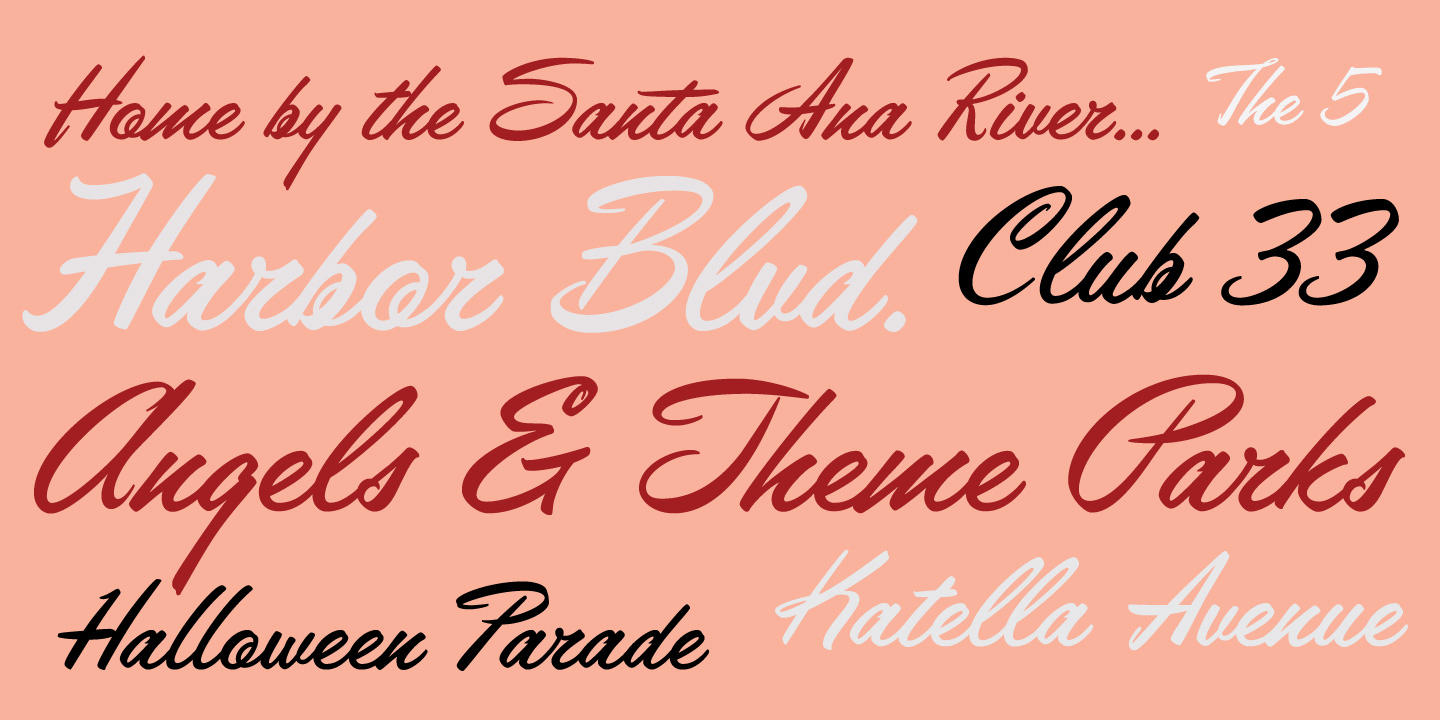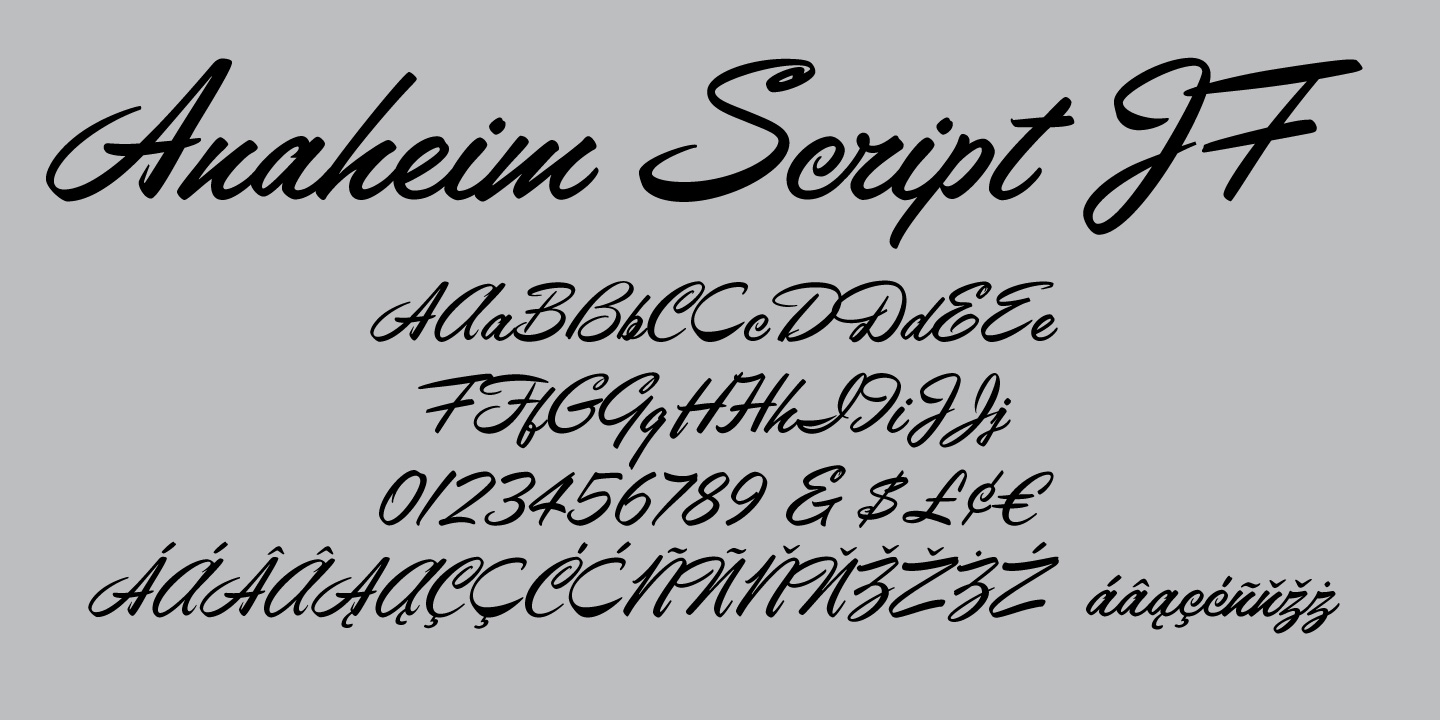
Anaheim Script Pro
Font Family by Jukebox
Buy NowAnaheim Script is another fun retro-style typeface from Jukebox. Inspired by a sample in an old "how-to" book on hand lettering, this font grabs attention with its fun mid-century feel. Reminiscent of the hand painted signs of the 1950s and 1960s, Anaheim Script captures the fun and optimistic view of southern California.